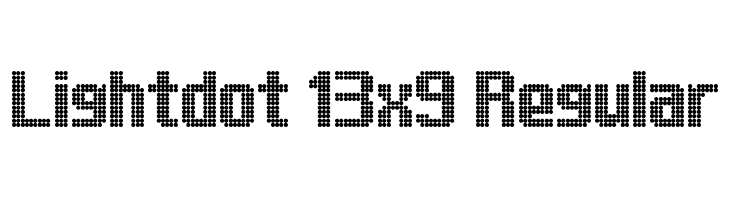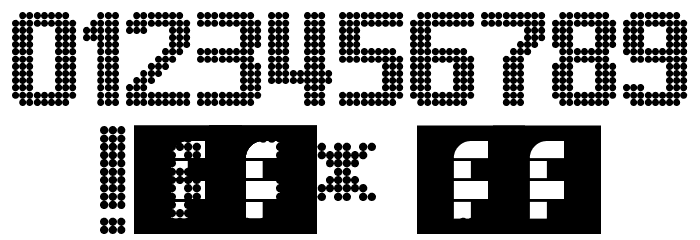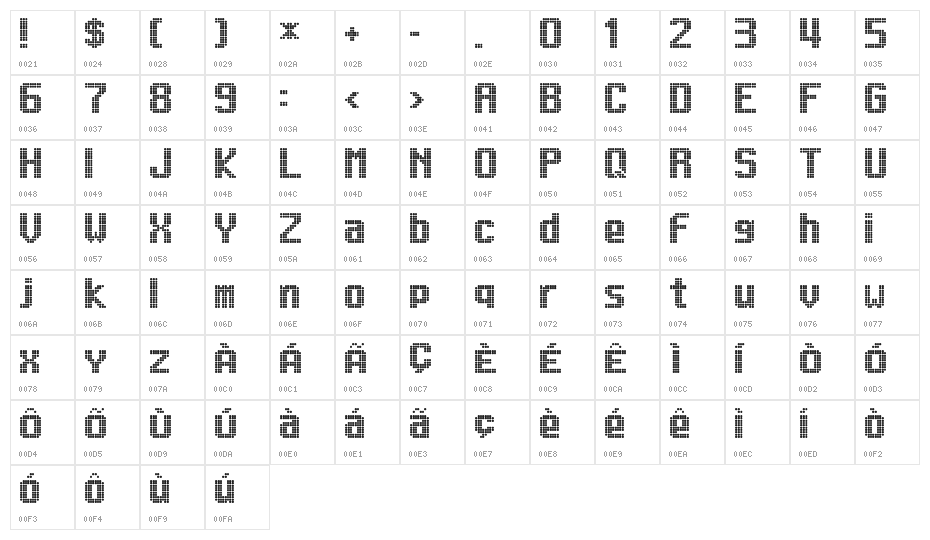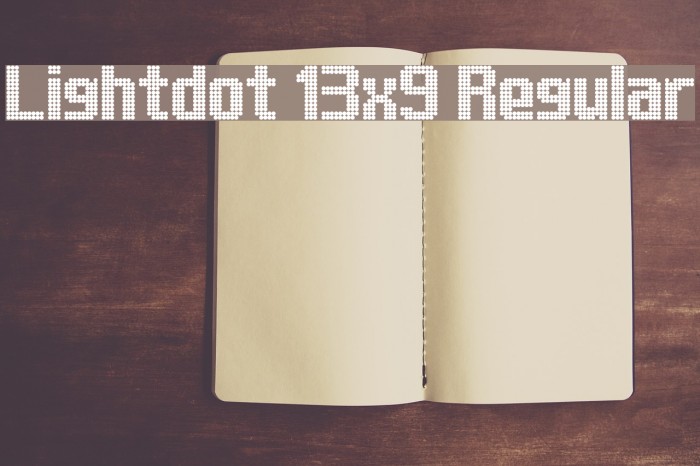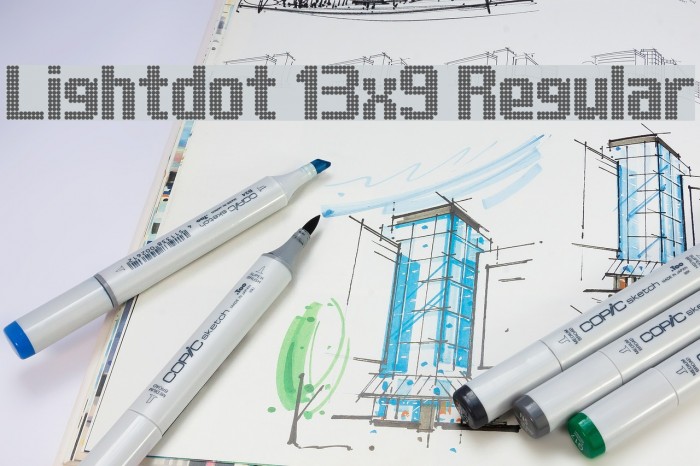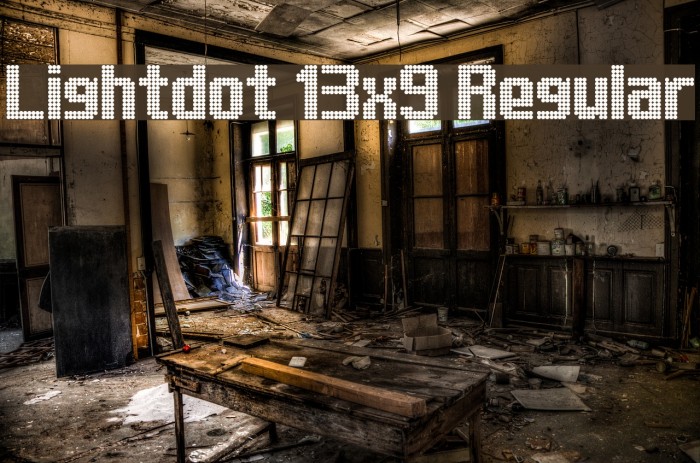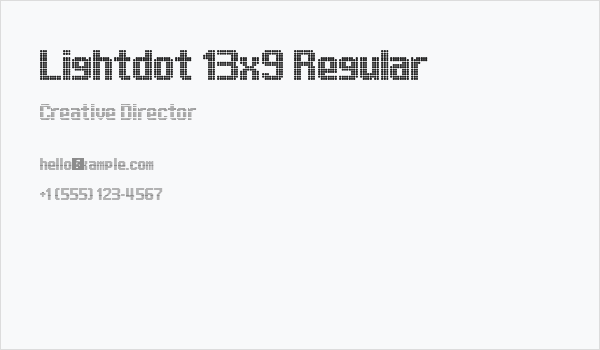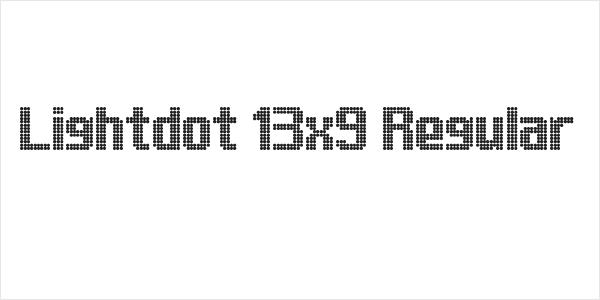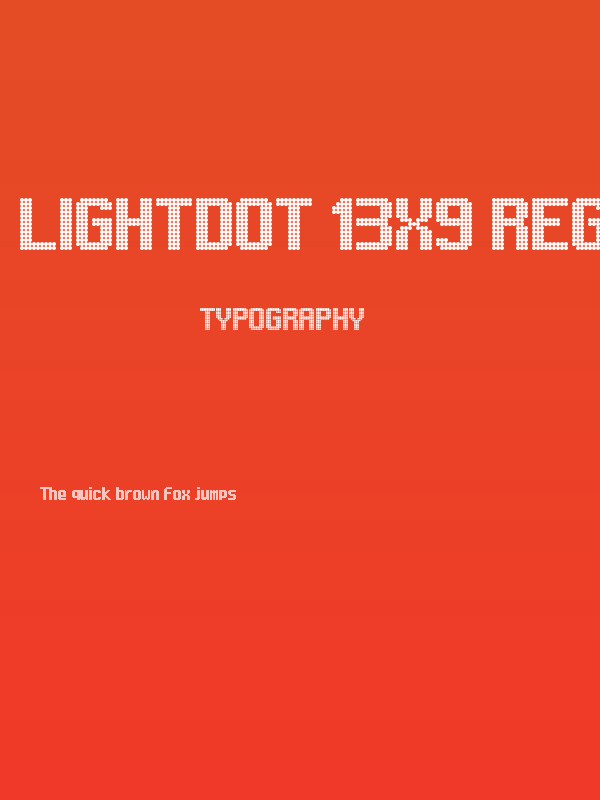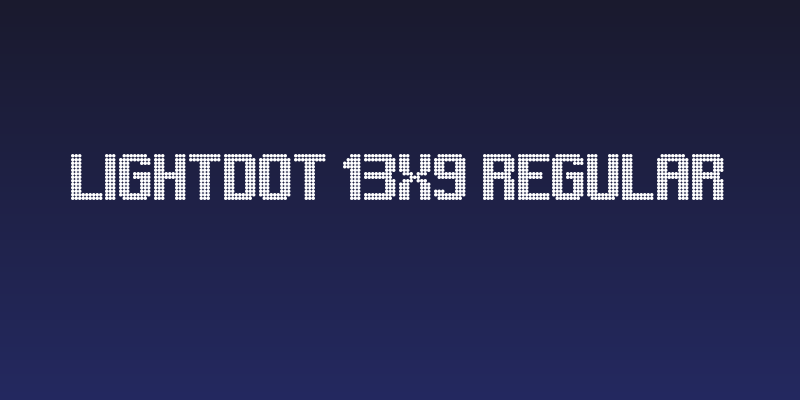
Lightdot 13x9 Regular Font
Lightdot 13x9 Regular Description
This font features a unique dot matrix design, where each character is composed of a grid of small, evenly spaced dots. The style is reminiscent of digital displays or LED signs, giving it a modern and technological feel. The characters are uniformly structured, providing a consistent and cohesive appearance across both uppercase and lowercase letters, as well as numbers and special symbols. The font's geometric nature makes it stand out, while the dot pattern adds a playful and creative touch. It's ideal for projects that require a digital or retro aesthetic, such as tech-related branding, digital art, or futuristic themes.
| Proposed Projects | Ideal for digital displays, tech branding, retro-themed designs, and digital art. |